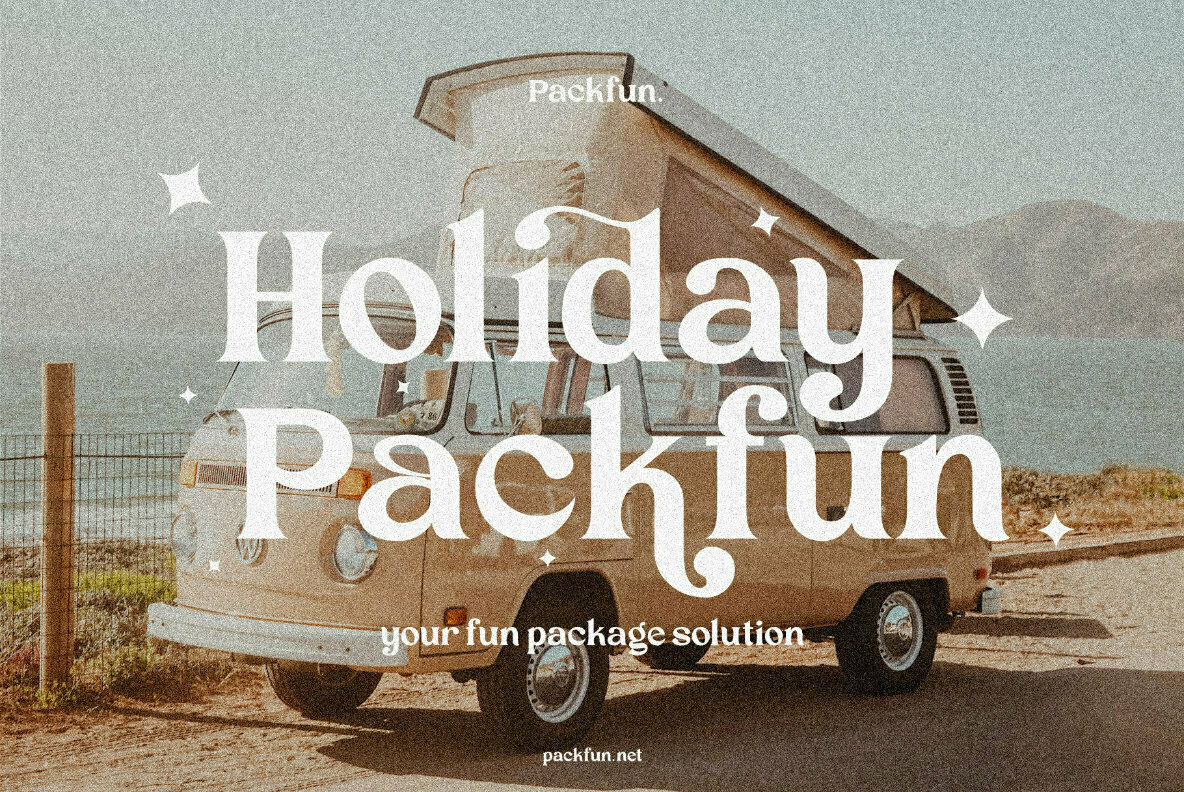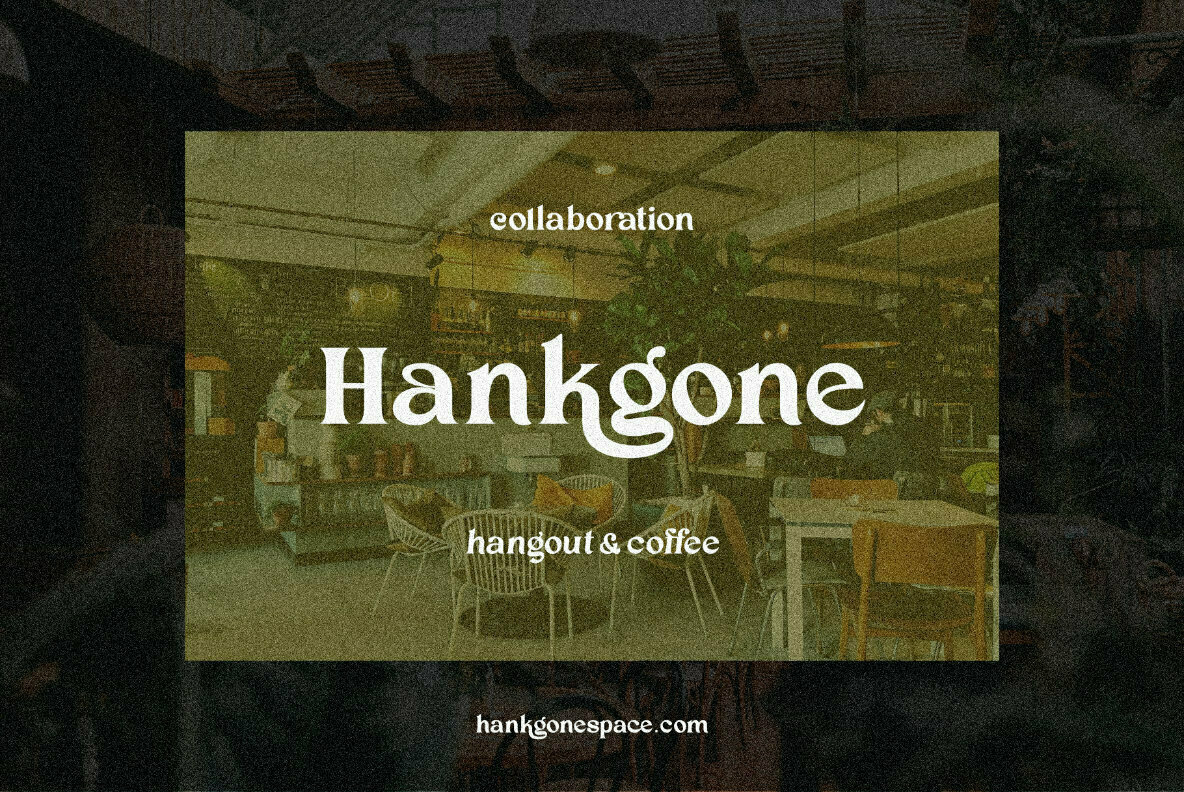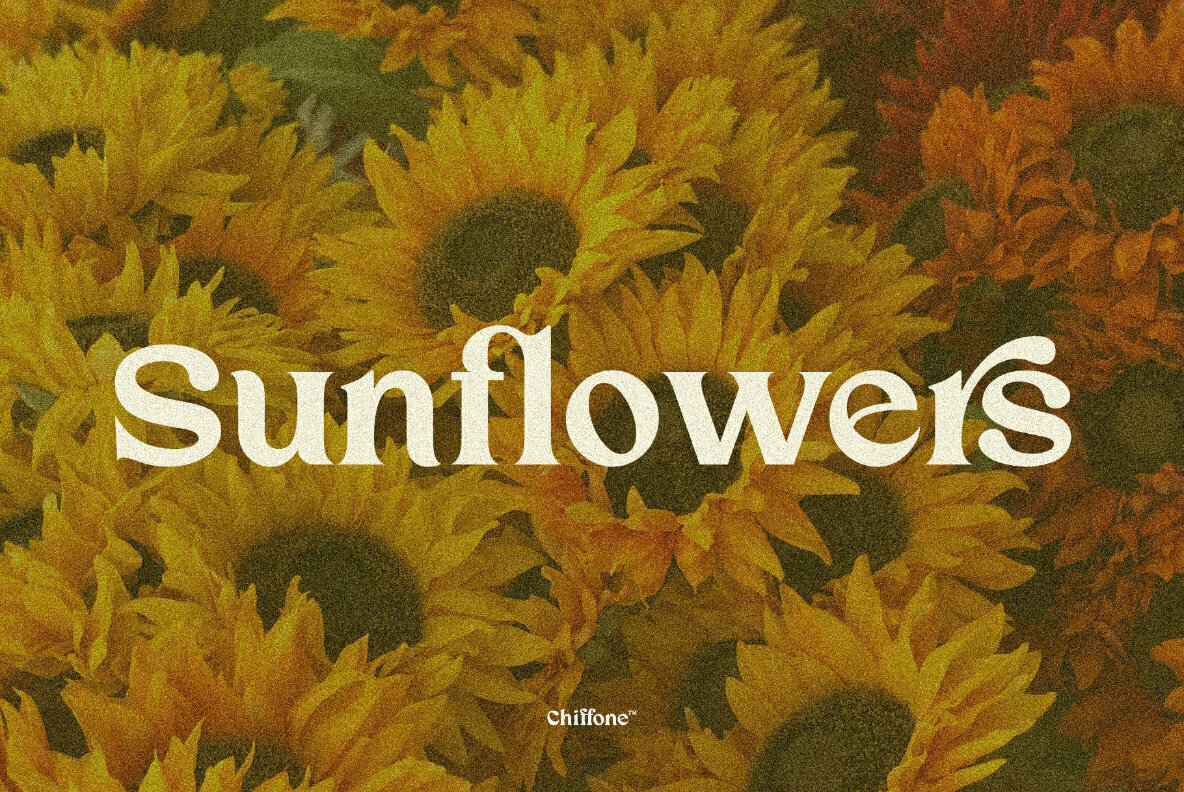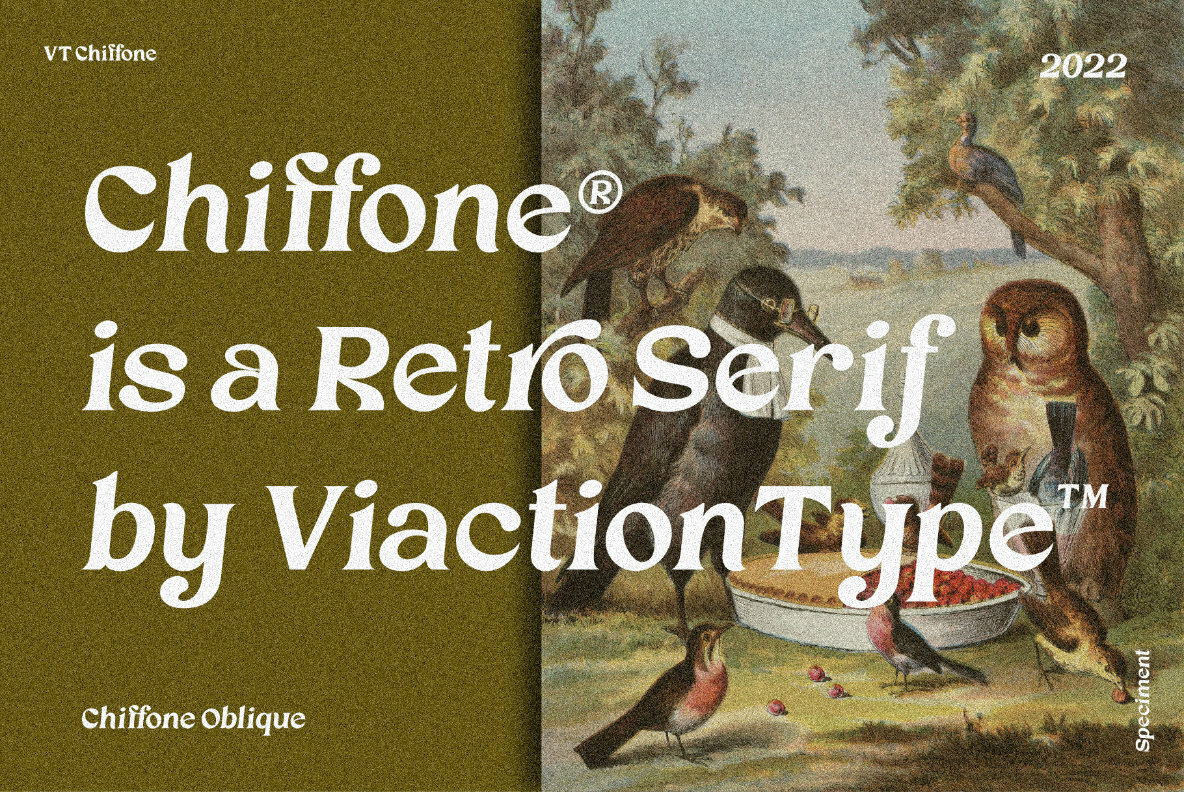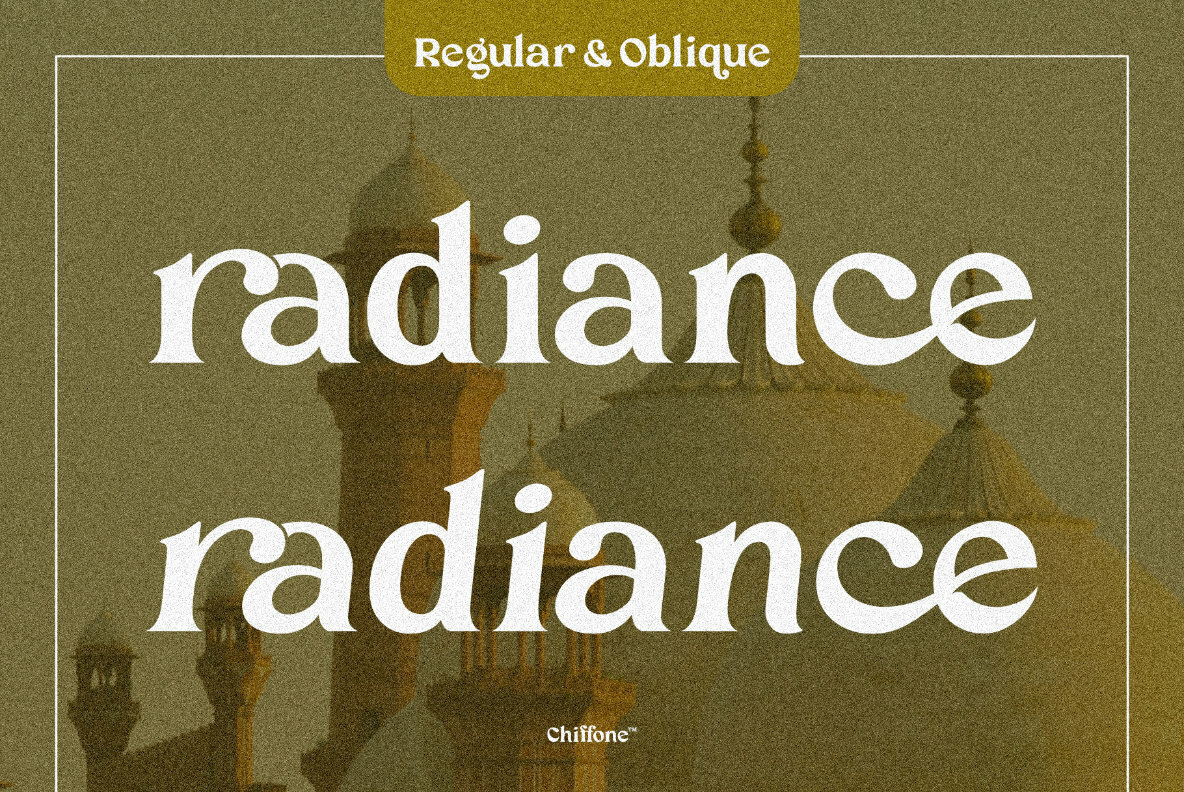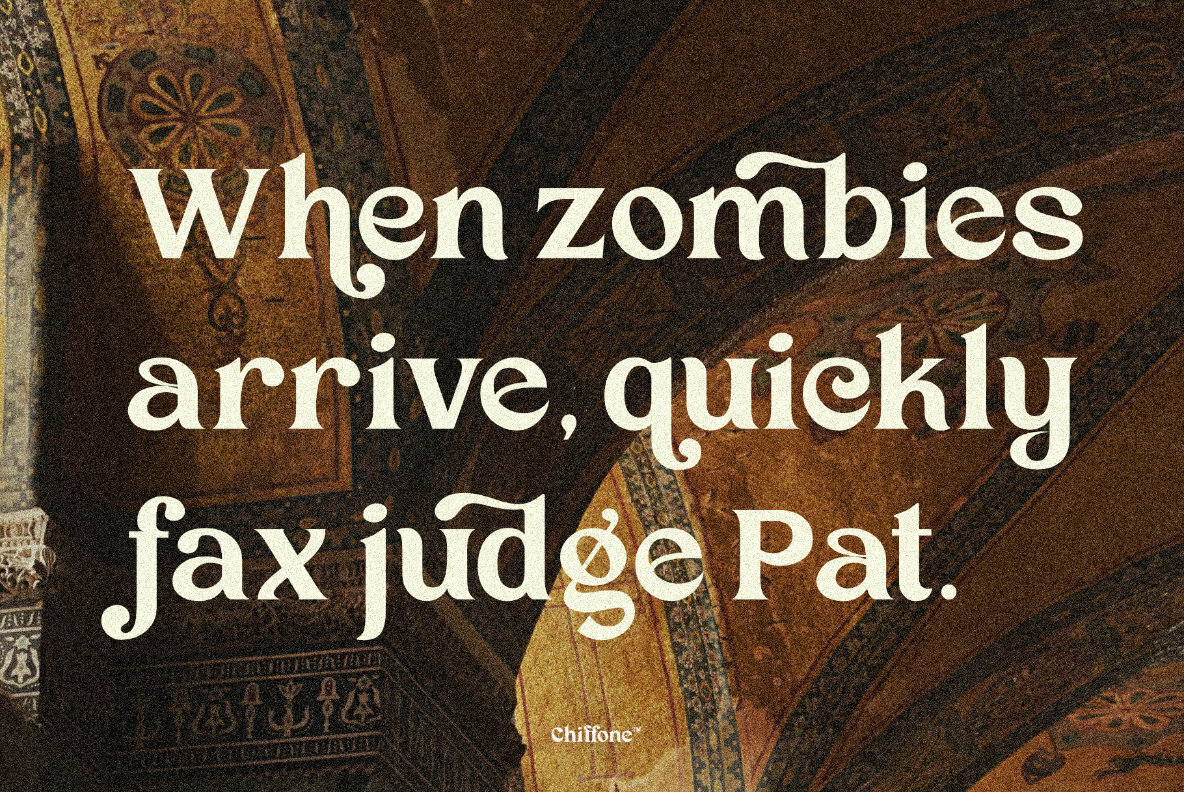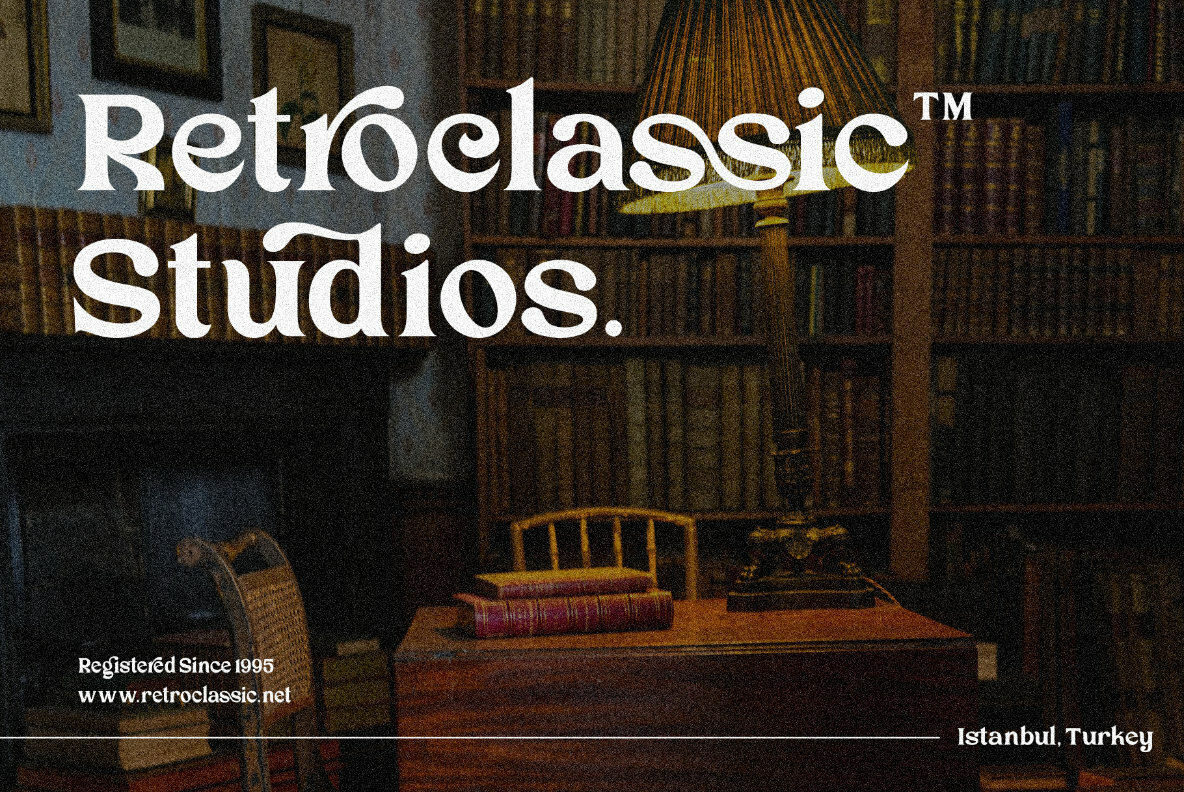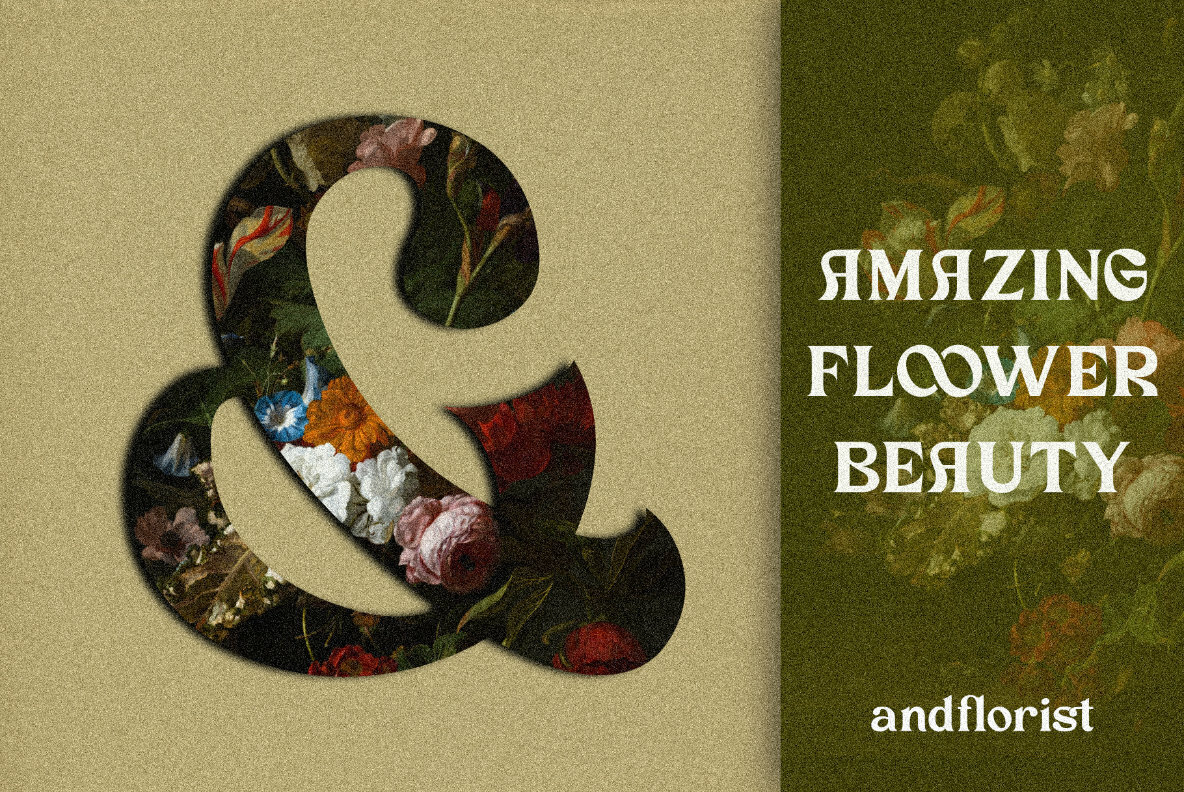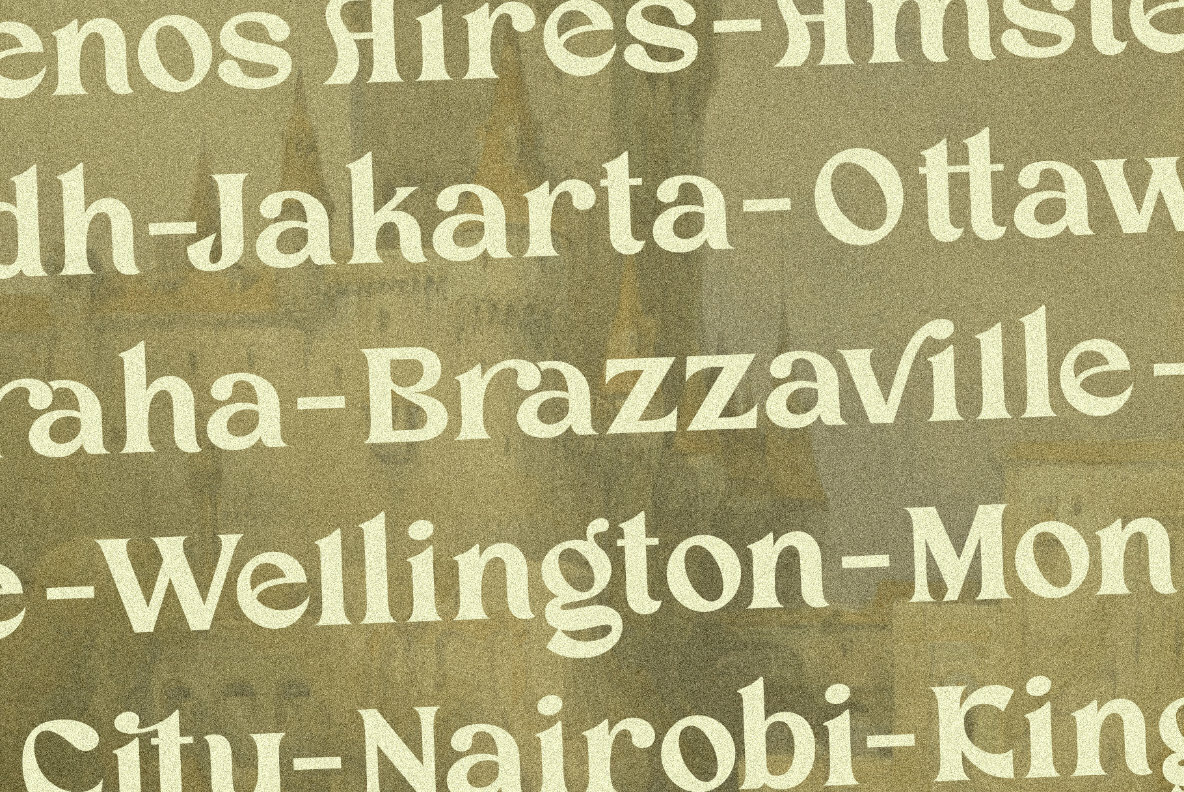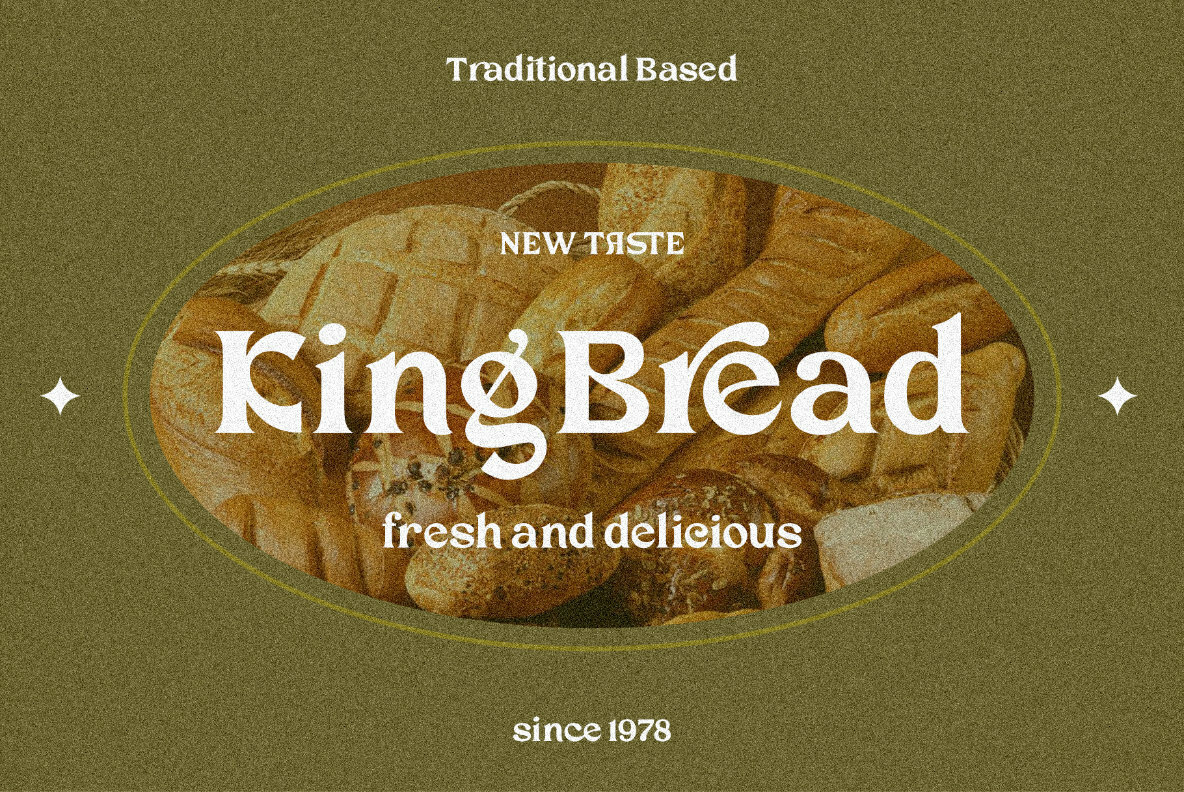
VT Chiffone Font
Chiffone Regular
Chiffone Oblique
Chiffone is a serif font with a retro style that is suitable for a variety of design purposes. Has a very soft curve, looks elegant and attractive when applied to the design. Equipped with opentype features such as Stylistic Alternate and rich Standard Ligature.